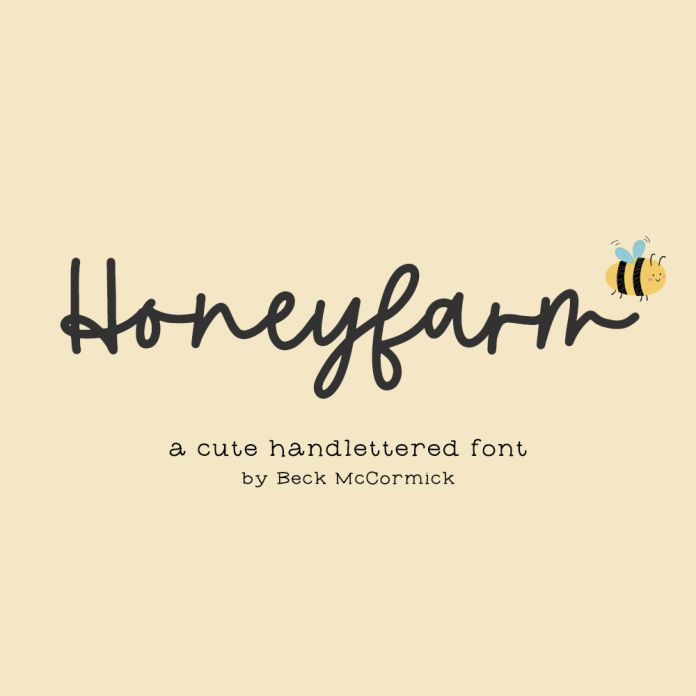
Introducing Honeyfarm, a cute monoline cursive font.
Honeyfarm is best for:
- feminine, crafty projects with your Cricut or Silhouette machine, or your SVG design business